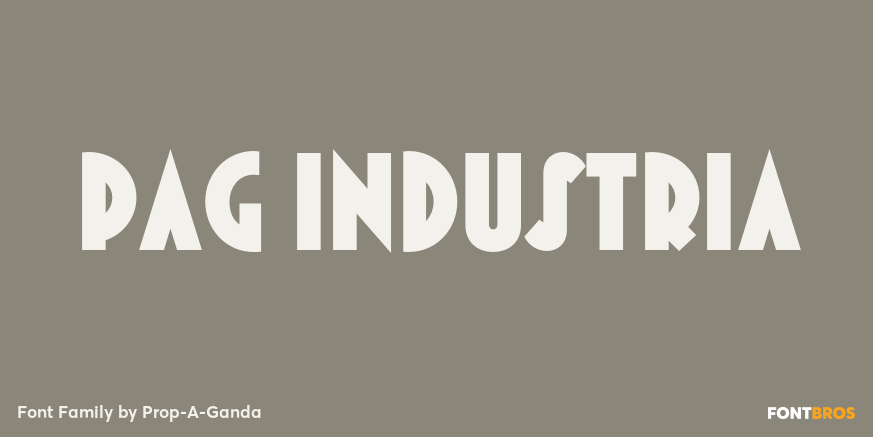
HomeFont BrosArt Deco (1910-1935)PAG Industria Art Deco (1910-1935)Sans Serif PAG Industria FacebookXPinterestWhatsApp 1 of 1 About PAG Industria Inspired by and based on retro propaganda posters, movie posters, shopfront lettering & advertisements in the early 20th century. This is perfect font for your retrostyle project.  DOWNLOAD ON FONT BROSThis font is sold and delivered by Font Bros. Font Canyon may earn a commission if you buy through this link. People also explored Tires Textured Glyphs Font Mordibella Font Happily Holiday Font Lhetyan Script Chenthia Font Zhafira Font Butter Font Chords Font Salgitha Font 281 0 TagsPAG Industria Font Previous articleSuit SpaceNext articleFlourishes A LEAVE A REPLY Cancel reply Comment: Please enter your comment! Name:* Please enter your name here Email:* You have entered an incorrect email address! Please enter your email address here Website: Save my name, email, and website in this browser for the next time I comment. Personal Use Free Legacy Personal Use Free Read more about this font Adriator Personal Use Free Read more about this font Little Things Duo Personal Use Free Read more about this font Cranberry Gin Personal Use Free Read more about this font BLOG Free Fonts Risk: Why Free Fonts Can Be Dangerous for Designers Free Fonts Risk: Why Free Fonts Can Be Dangerous for Designers Using free fonts is a common practice in web and graphic design. However, the... How to Install and Use Fonts on Windows, macOS, and Web Projects Where to Buy American Fonts Online in 2024 Elegant Wedding Invitation Fonts – Handwritten & Script Fonts